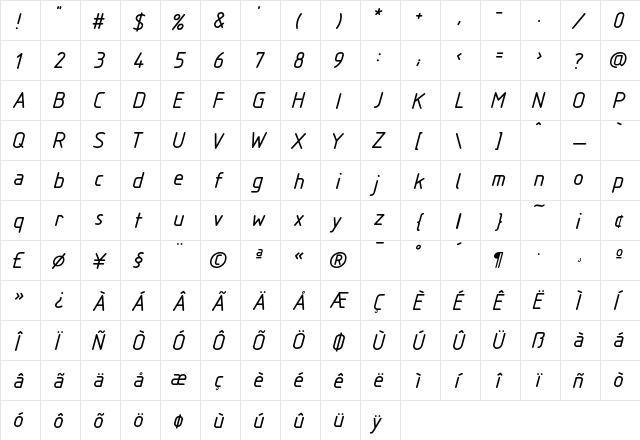
Isonorm Italic
Design Context for Isonorm Typeface
Isonorm is a composed and adaptable typeface that performs quietly and consistently across a wide range of design contexts. The dynamic lean of this cut emphasises speed and emphasis in any layout.
Pro Tip: Try Isonorm for annotation and caption copy alongside an upright companion — the contrast in angle creates a dynamic but ordered typographic system.